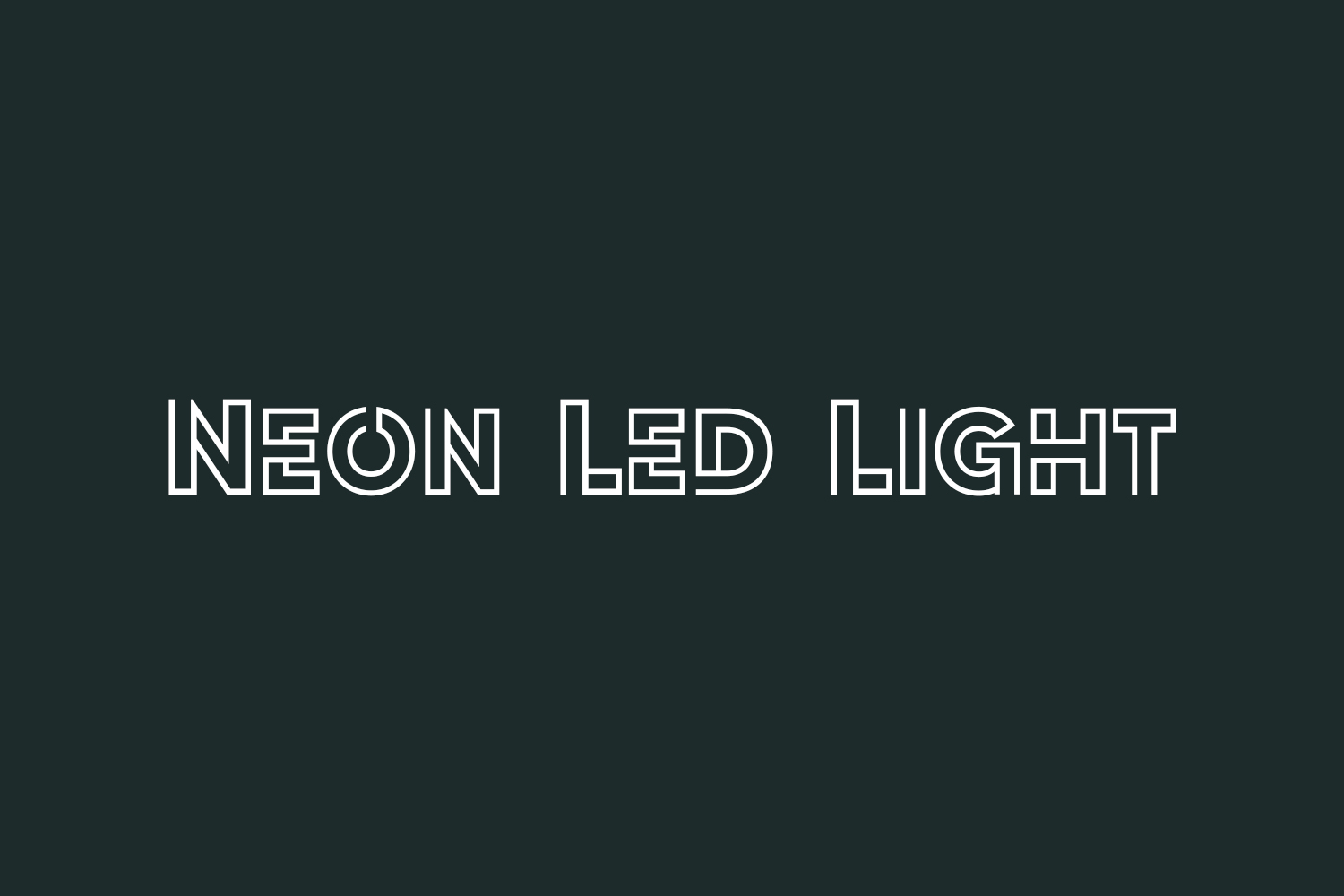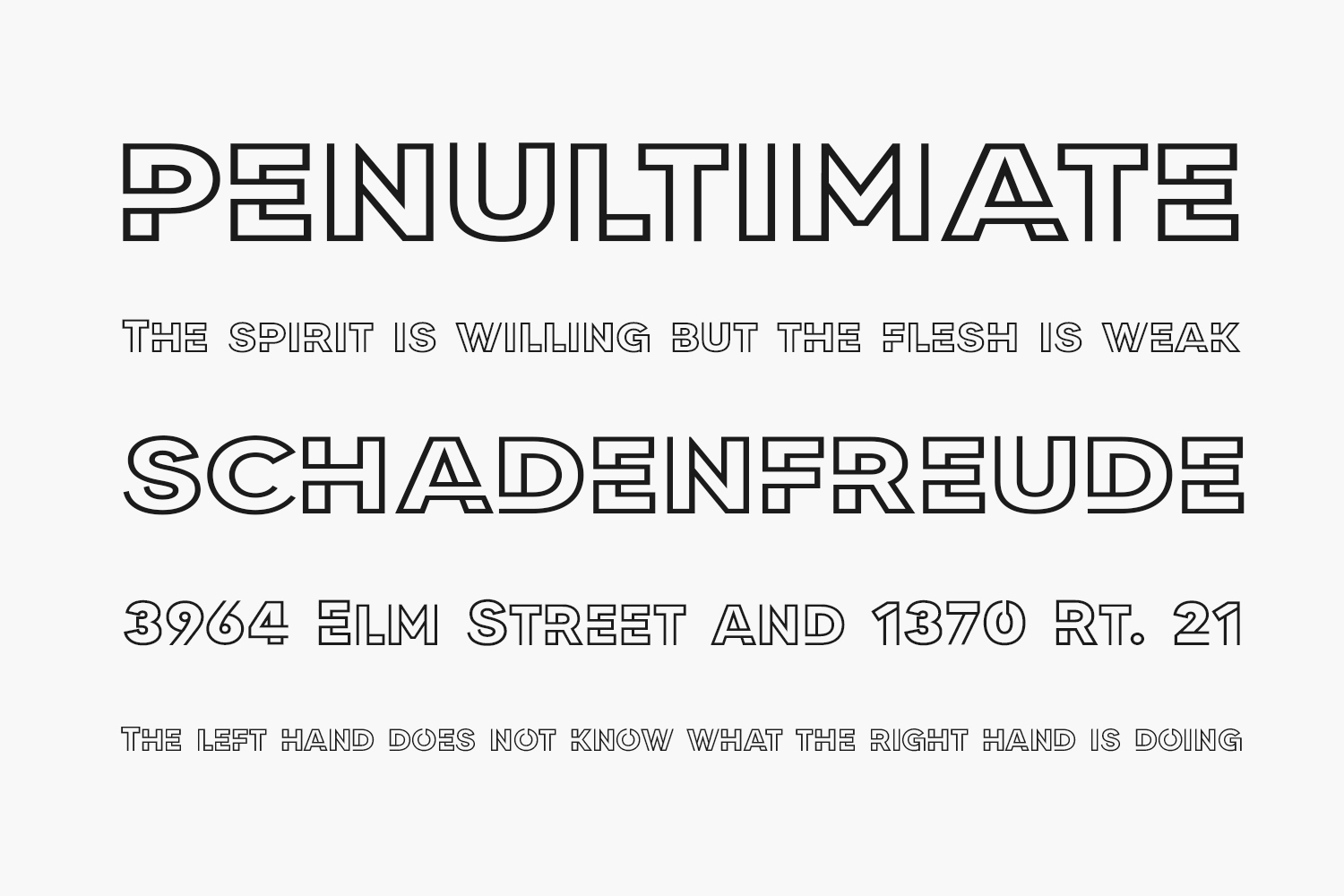
Neon Led Light Free Font is an amazing neon style and two lines formation typeface that is designed. It has been designed by taking some concepts from fancy and stylish typefaces. Neon Led Light Free Font is great for various designing applications like Adobe Photoshop and Adobe Illustrator and looks great on any kind of your design. Neon Led Light Free Font was designed by Fontles and is free for personal use only. Please purchase the full version for commercial use.